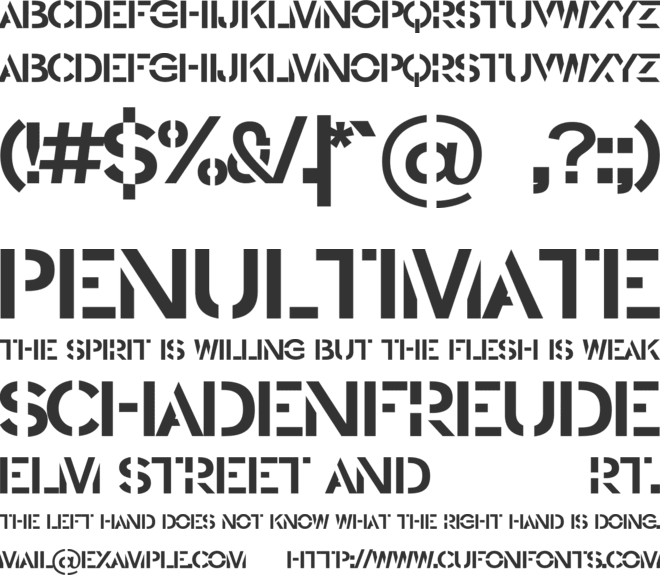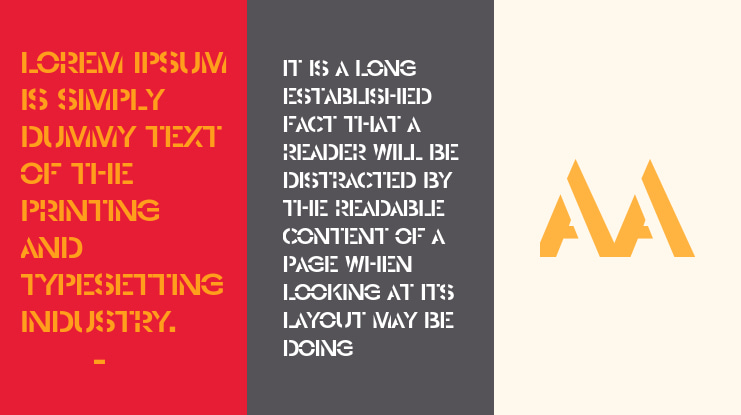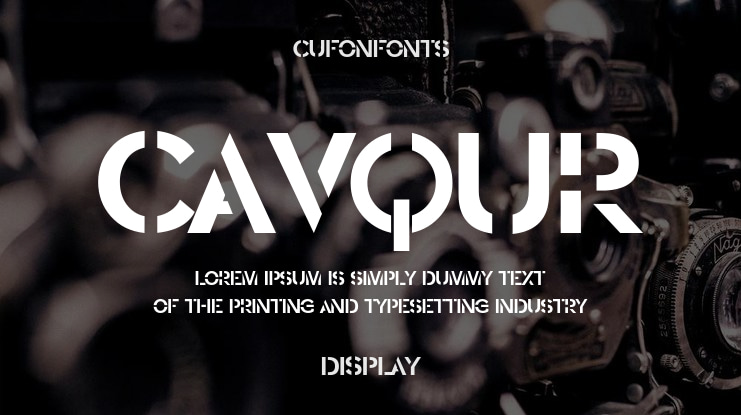
CAVQUR Font Family
Cavour is a geometric stencil sans serif with minimalist precision and multilingual support—ideal for branding, editorial layouts, and futuristic design.